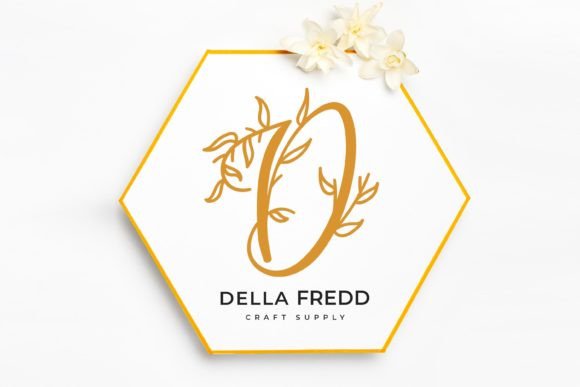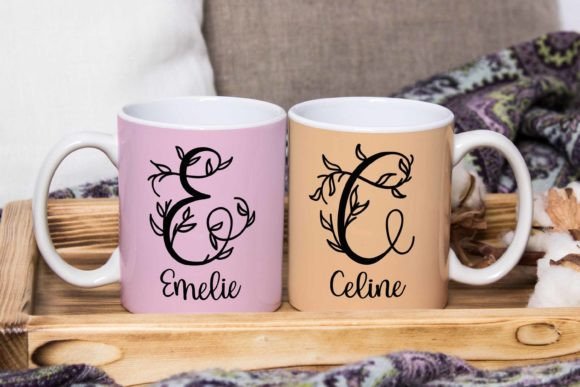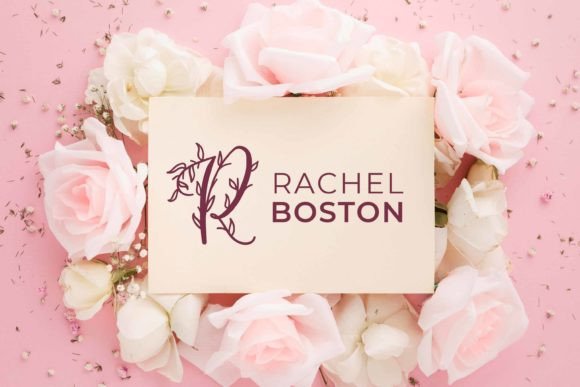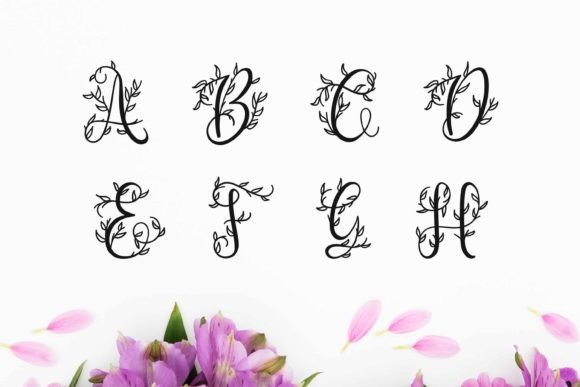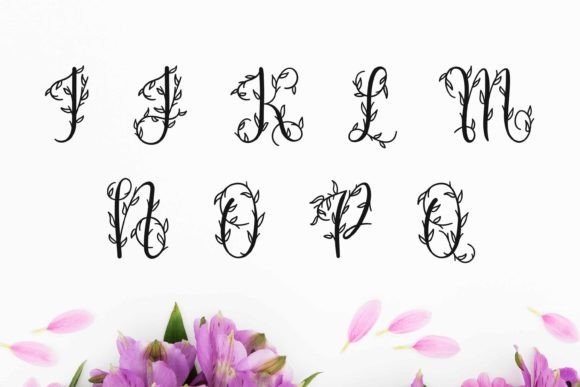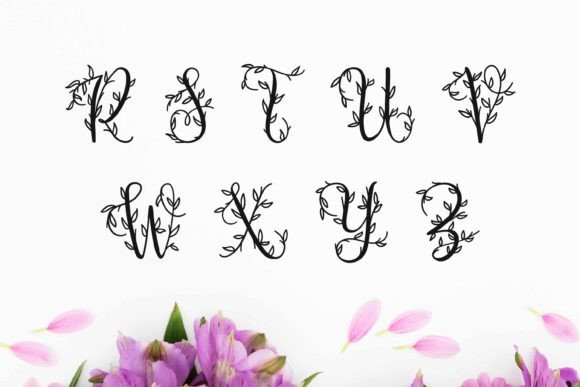
Introducing Flourish Monogram Font: Elevate Your Designs with Elegance
Are you a designer or crafter looking for a font that exudes elegance and sophistication? Look no further than Flourish Monogram Font, an incredibly distinct, delicate, and timeless handwritten font. With its unique charm, Flourish Monogram is perfect for adding a personal touch to various designs, from wedding invitations to business cards.
The Beauty of Flourish Monogram Font
Flourish Monogram Font is a stunning handwritten font that boasts a delicate and intricate design. Its classic and timeless feel makes it an excellent choice for designers and crafters seeking to add a touch of elegance to their work. The font’s unique monogram style sets it apart from other fonts, making it perfect for creating custom logos, wedding invitations, and other designs that require a personal touch.
Wedding invitations, save-the-date cards, and thank-you notes are just a few examples of where Flourish Monogram Font shines. The font’s delicate and elegant design creates a romantic atmosphere, perfect for wedding and event designs. Whether you’re a designer or a crafty DIYer, Flourish Monogram Font will help you create beautiful and memorable stationery.
Versatility Beyond Wedding Designs
While Flourish Monogram Font excels in wedding and event designs, its versatility extends far beyond. The font is also ideal for:
- Logos and branding: Add a touch of elegance to your business logo or brand identity.
- Business cards: Stand out with a beautifully designed business card featuring Flourish Monogram Font.
- Greeting cards: Create custom greeting cards for special occasions, such as birthdays, anniversaries, or holidays.
- Quotes and typography: Use Flourish Monogram Font to add a decorative touch to inspirational quotes or typography-focused designs.
Why Choose Flourish Monogram Font?
With so many fonts available, why choose Flourish Monogram Font? Here are just a few reasons:
- Unique and distinctive: Flourish Monogram Font stands out from more common fonts, adding a touch of personality to your designs.
- Elegant and sophisticated: The font’s delicate design exudes elegance and sophistication, perfect for high-end designs.
- Timeless: Unlike trendy fonts that may quickly go out of style, Flourish Monogram Font’s classic design ensures it will remain timeless for years to come.
Tips for Using Flourish Monogram Font
To get the most out of Flourish Monogram Font, consider the following tips:
- Pair with complementary fonts: Combine Flourish Monogram Font with simpler fonts to create visual interest and hierarchy.
- Experiment with colors: Try pairing Flourish Monogram Font with different colors to create unique and eye-catching designs.
- Use it sparingly: Due to its intricate design, Flourish Monogram Font works best when used sparingly. Use it for headings, titles, or accents to add a touch of elegance.
Flourish Monogram Font is a stunning and versatile handwritten font perfect for designers and crafters seeking to add a touch of elegance to their work. With its unique monogram style, delicate design, and timeless feel, Flourish Monogram Font is ideal for a wide range of designs, from wedding invitations to business cards. Whether you’re a seasoned designer or a crafty DIYer, Flourish Monogram Font is sure to elevate your designs and leave a lasting impression.